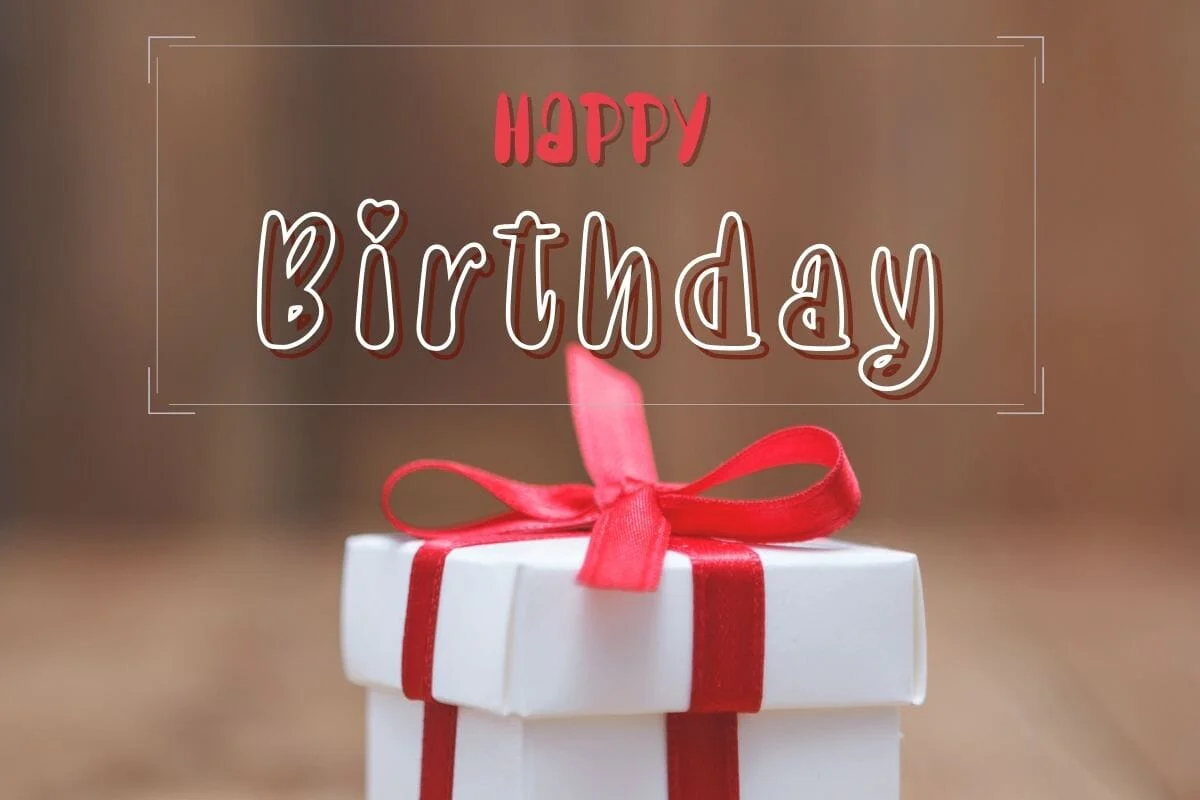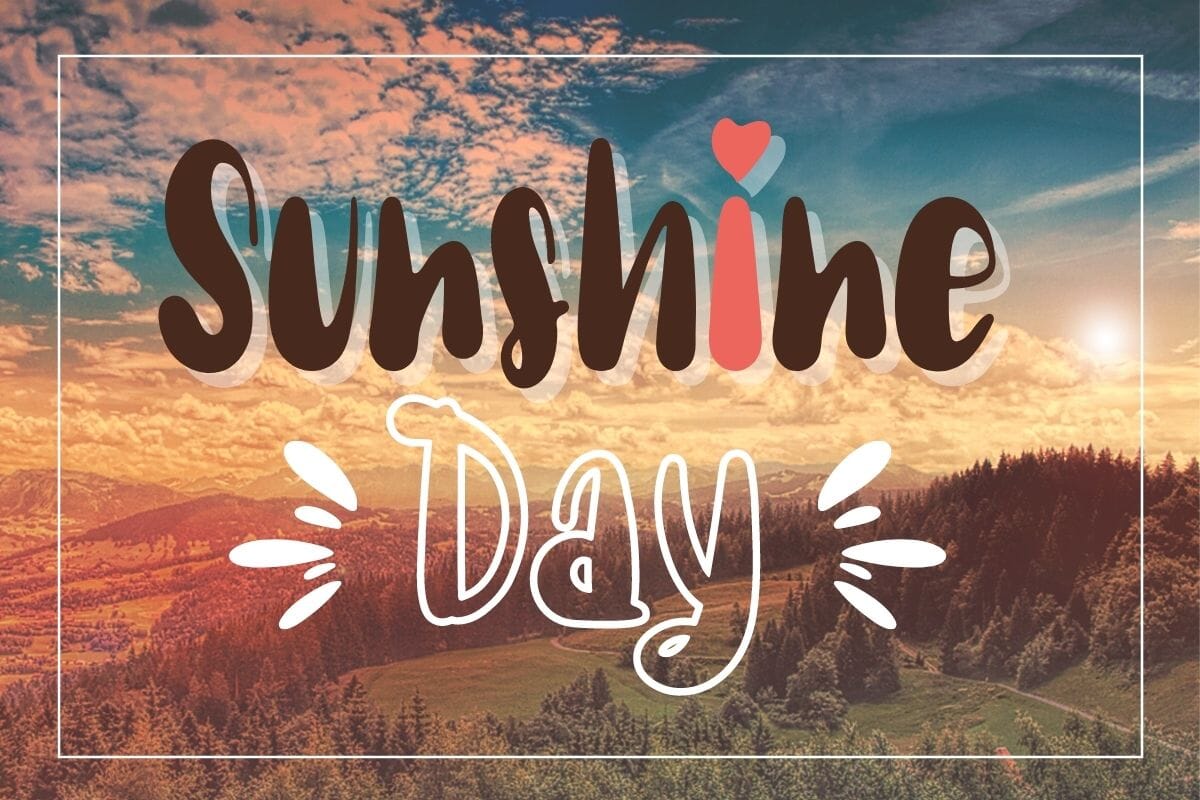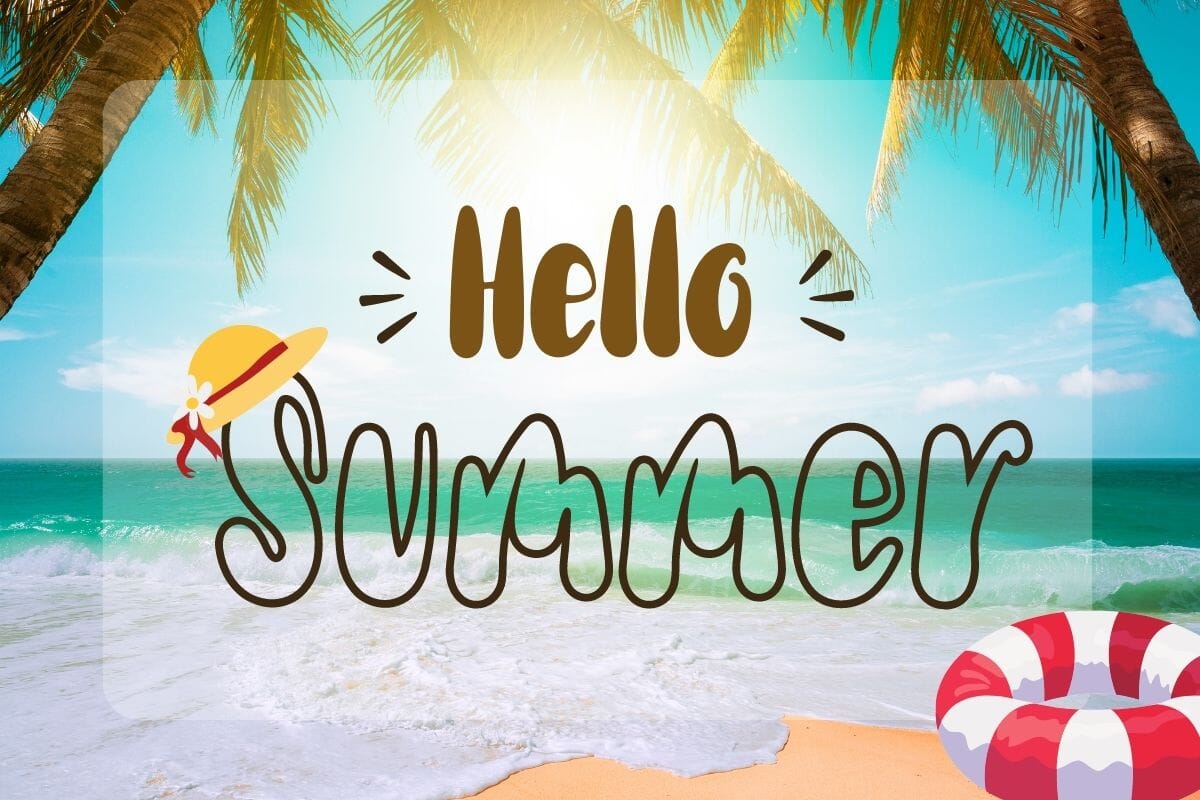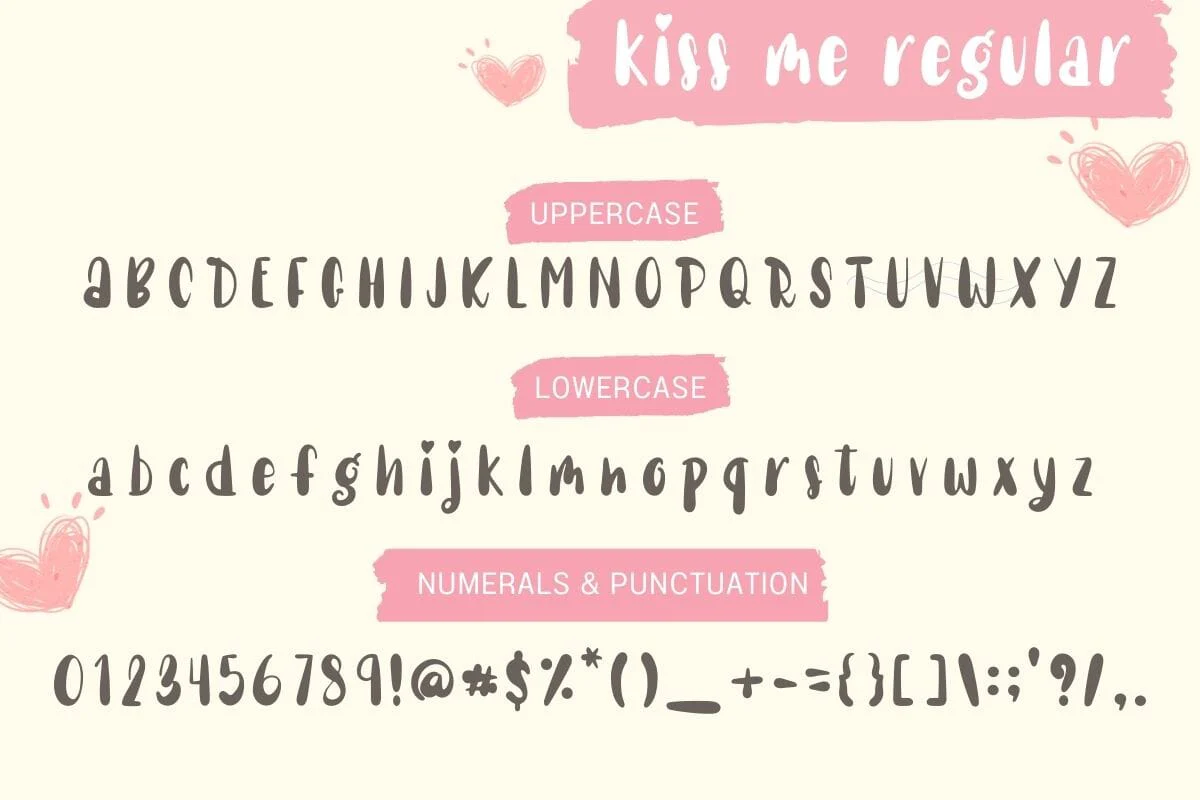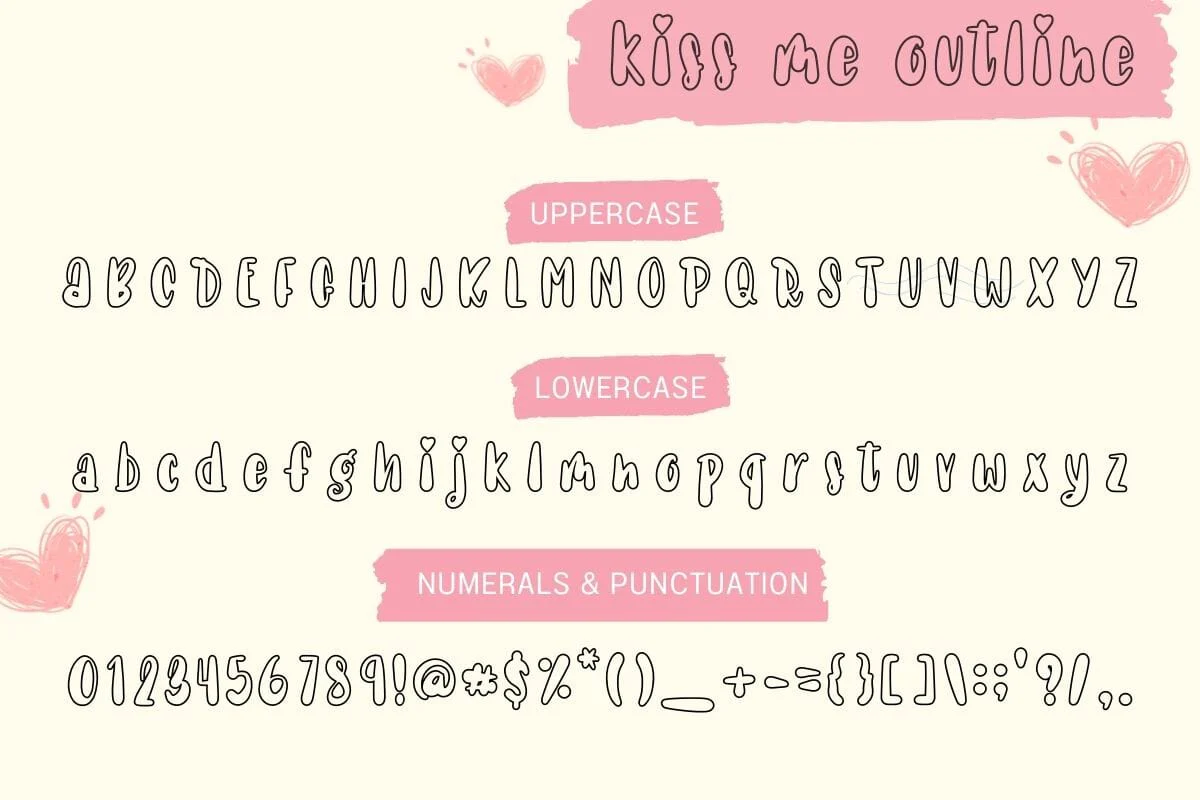
Kiss Me - Cute handwritten Font
Kiss Me is a cute display font that will help you enjoy and have fun with your designs. Perfect for creating a wide variety of designs such as banners, mugs, cards, shirts, stationery, social media posts, and more!